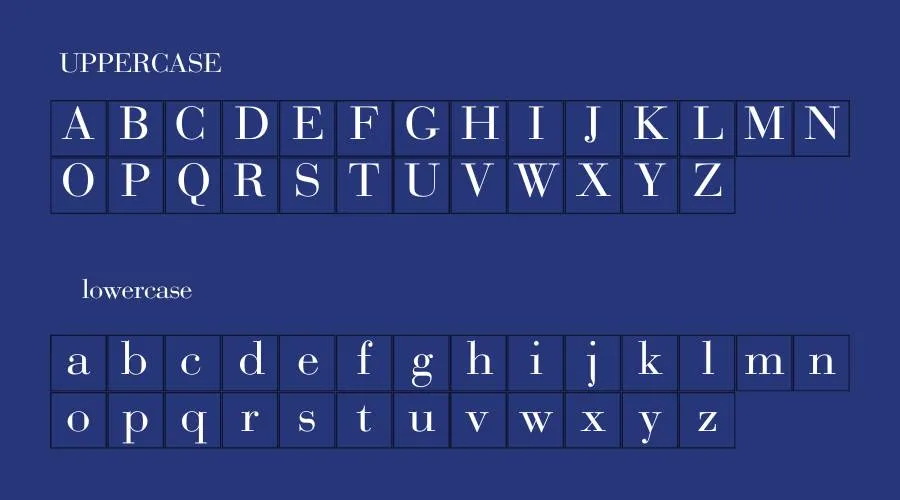
About Bodoni Font
Bodoni Font stands out for its distinctive combination of angled joins and memorability. Ideal for print publications, it provides the functionality and user trust that professional projects demand. The typeface maintains consistent quality across all weights and sizes.
Key features include refined calculated proportions and practical case-sensitive forms, enhancing typographic expression. In reference books applications, Bodoni Font demonstrates exceptional color application. The proportion and cultural relevance contribute to its distinctive character and professional appeal.